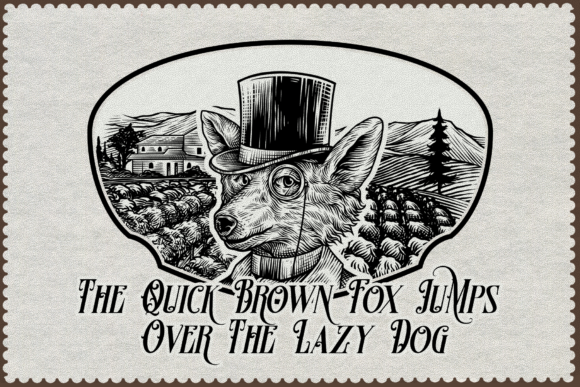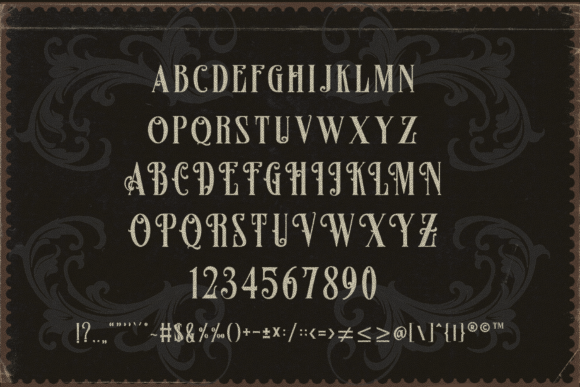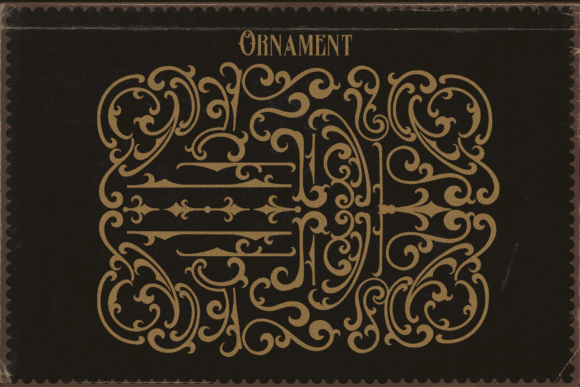
Famous Flames Font
Create gorgeous and timeless designs with Famous Flames, an interesting and unique blackletter font.
Fall in love with its incredibly stylish look and use it for logos, quotes, invitations, business cards, presentations and more!